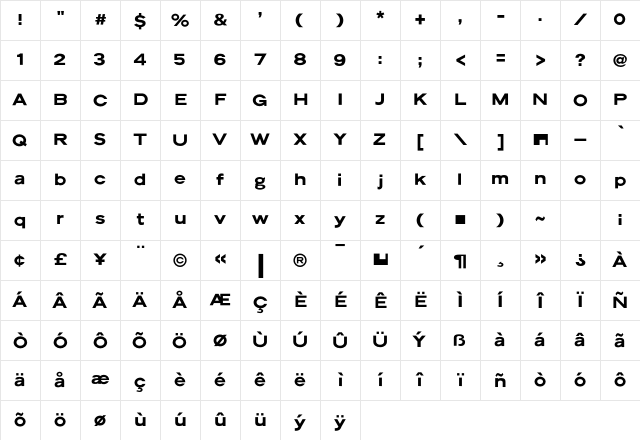
Lunar Orbiter Free Font
Lunar Orbiter
Style: Orbiter
Design Context for Lunar
Lunar is a composed and adaptable typeface that performs quietly and consistently across a wide range of design contexts.